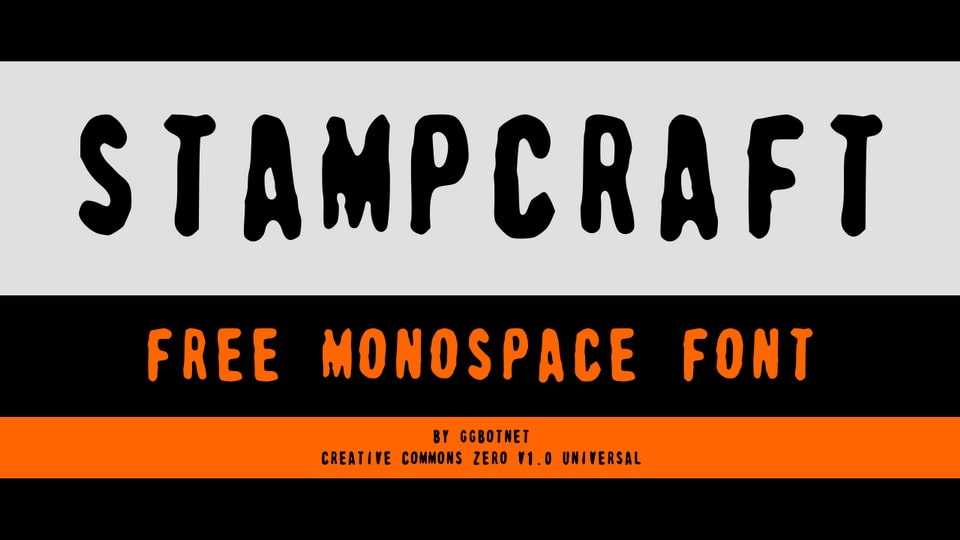
Download Stampcraft font, a grunge-inspired monospaced font that captures the raw, imperfect charm of hand-stamped lettering. Its uneven edges and distressed details give it a bold, rugged personality.